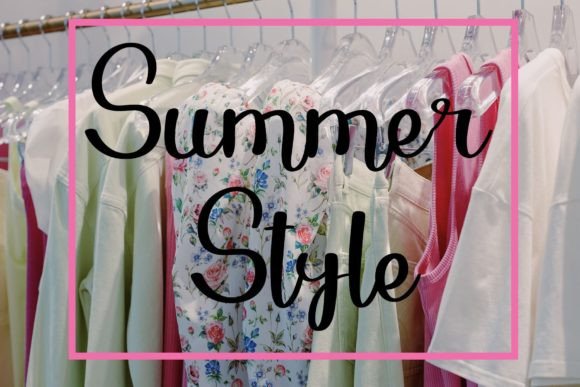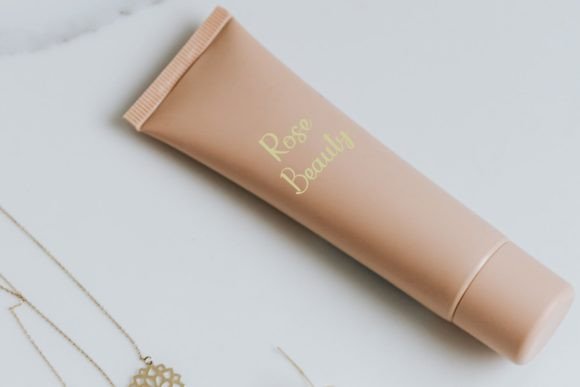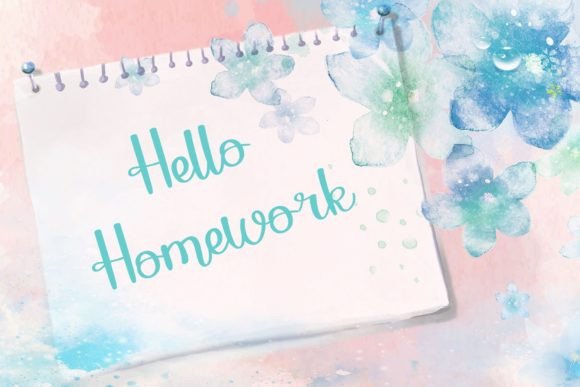
About Calisa Font
Introducing Calisa, a lively and friendly handwritten font designed to add a touch of fun to your designs. With its playful style, Calisa has the ability to turn any design idea into a true standout. Let the unique charm of Calisa inspire your creativity and infuse your creations with a delightful touch.
This font goes beyond being a mere set of letters; it serves as a creative tool to bring a playful and friendly vibe to your projects. Whether you’re working on posters, social media graphics, invitations, or any other creative endeavor, Calisa brings a sense of joy and approachability.
Embrace the distinctive charm of Calisa as you explore its creative possibilities. Let it be the catalyst that transforms your design concepts into visually appealing and lovable creations. Whether used for headlines, logos, or any other design element, Calisa ensures that your projects radiate warmth and personality.
Incorporate Calisa into your design toolkit and witness how it can elevate your ideas into something extraordinary. Let the fun and friendly vibes of this handwritten font bring a new level of creativity and joy to your projects, making them not only visually appealing but also filled with a delightful charm that captures attention.